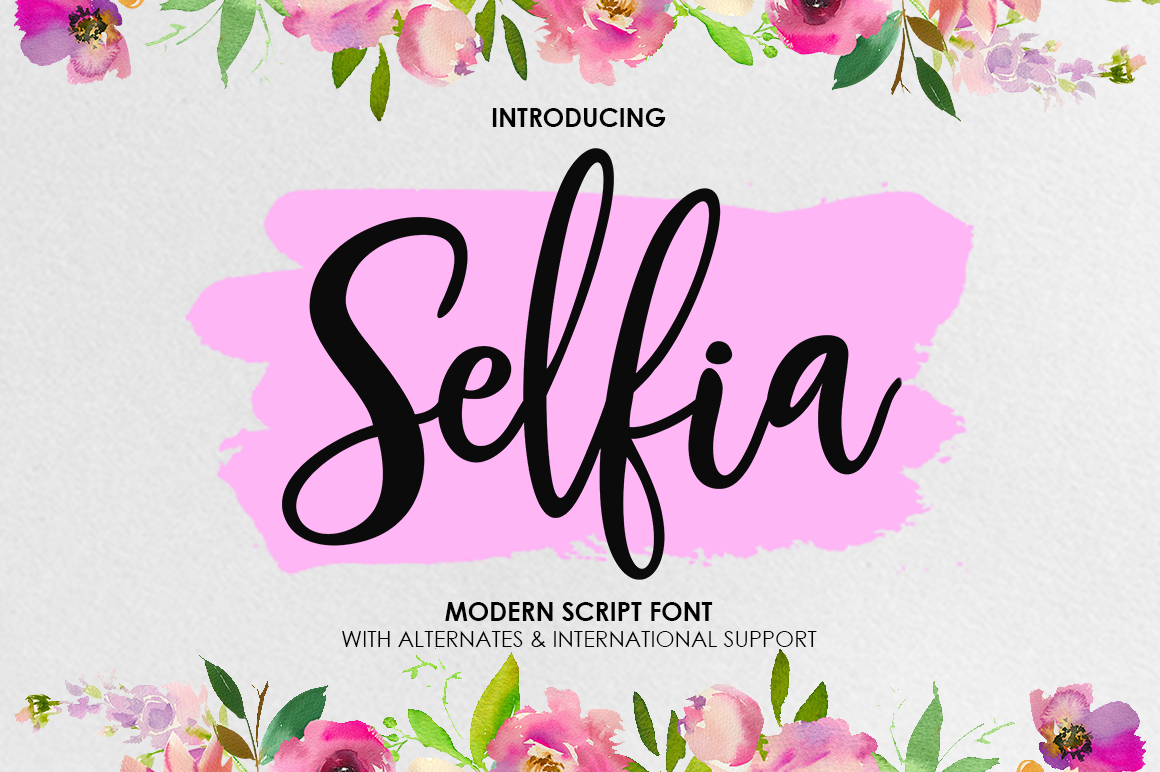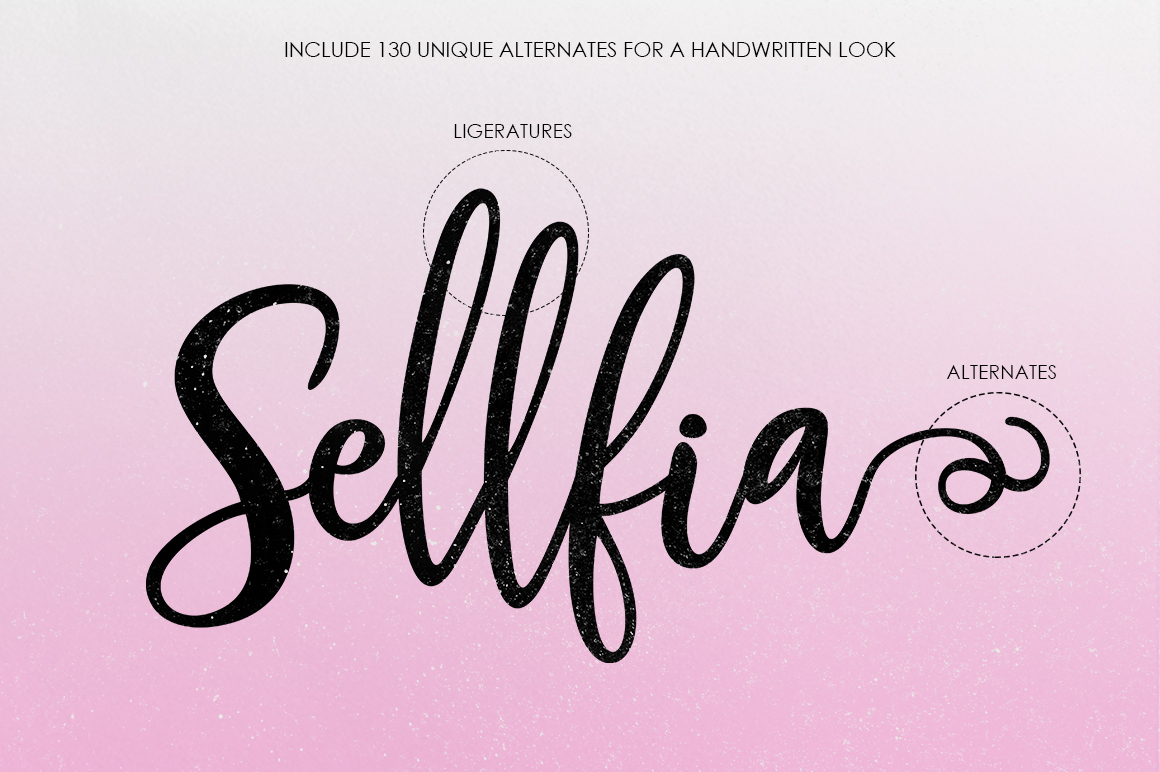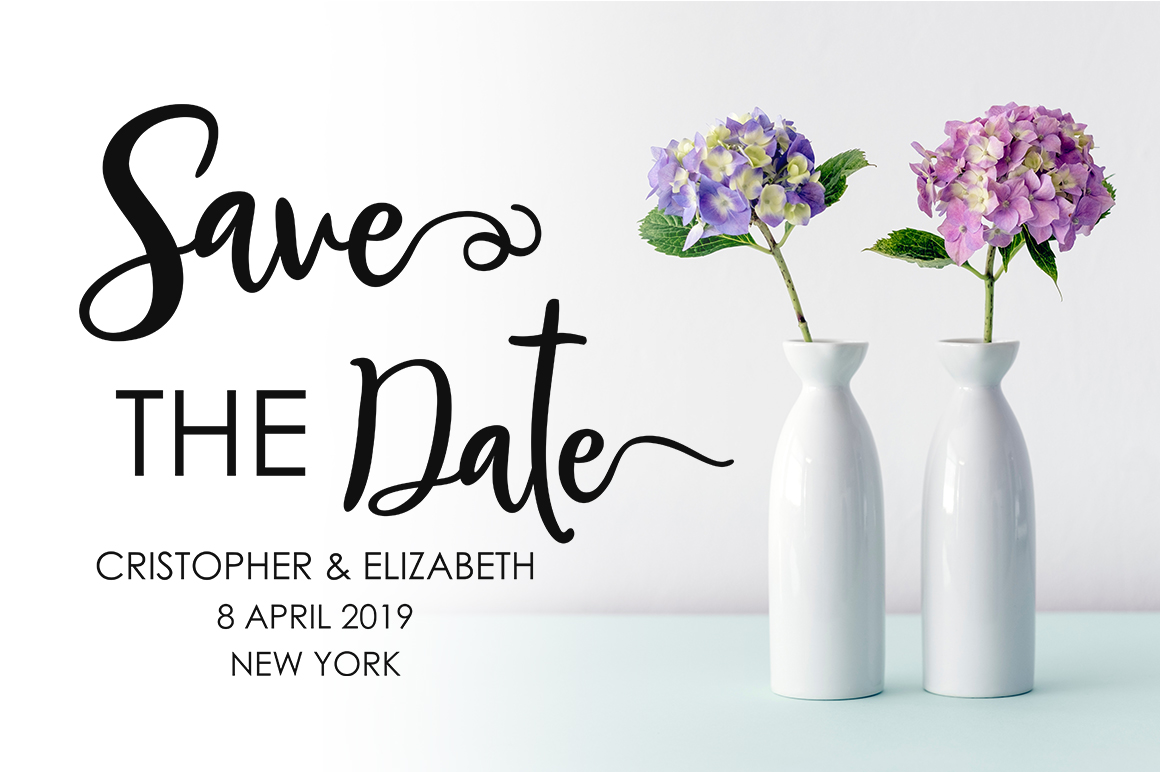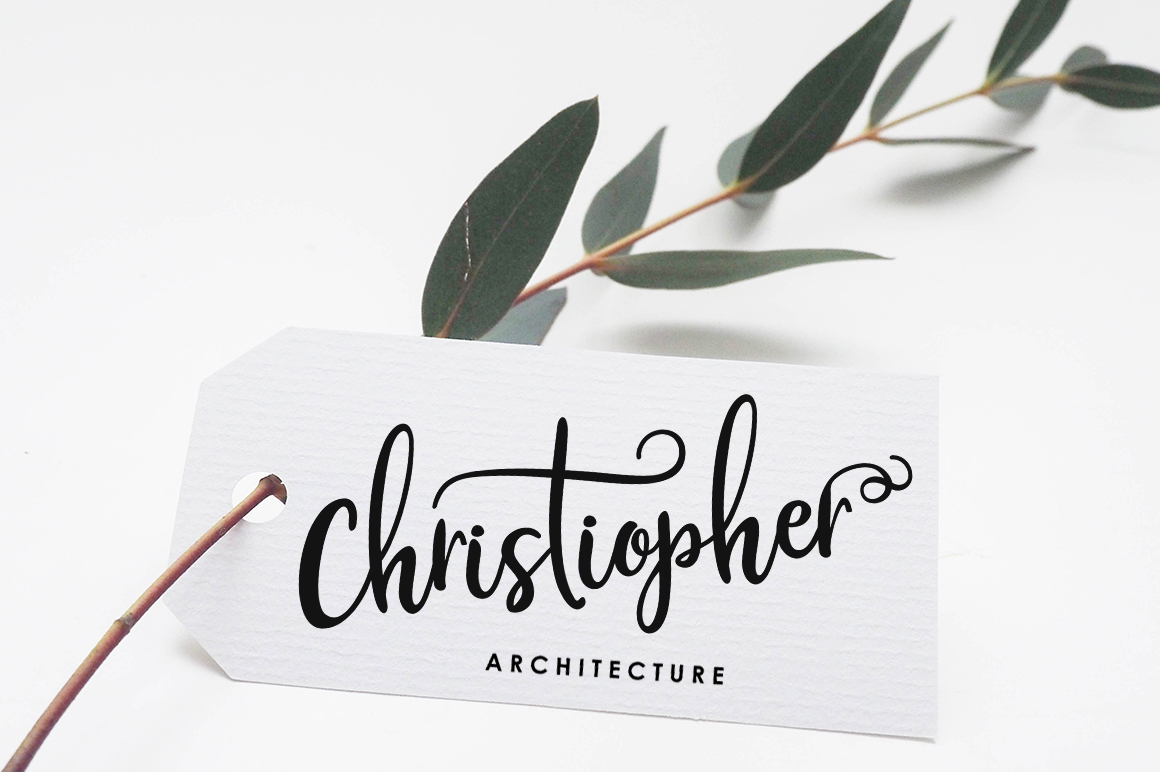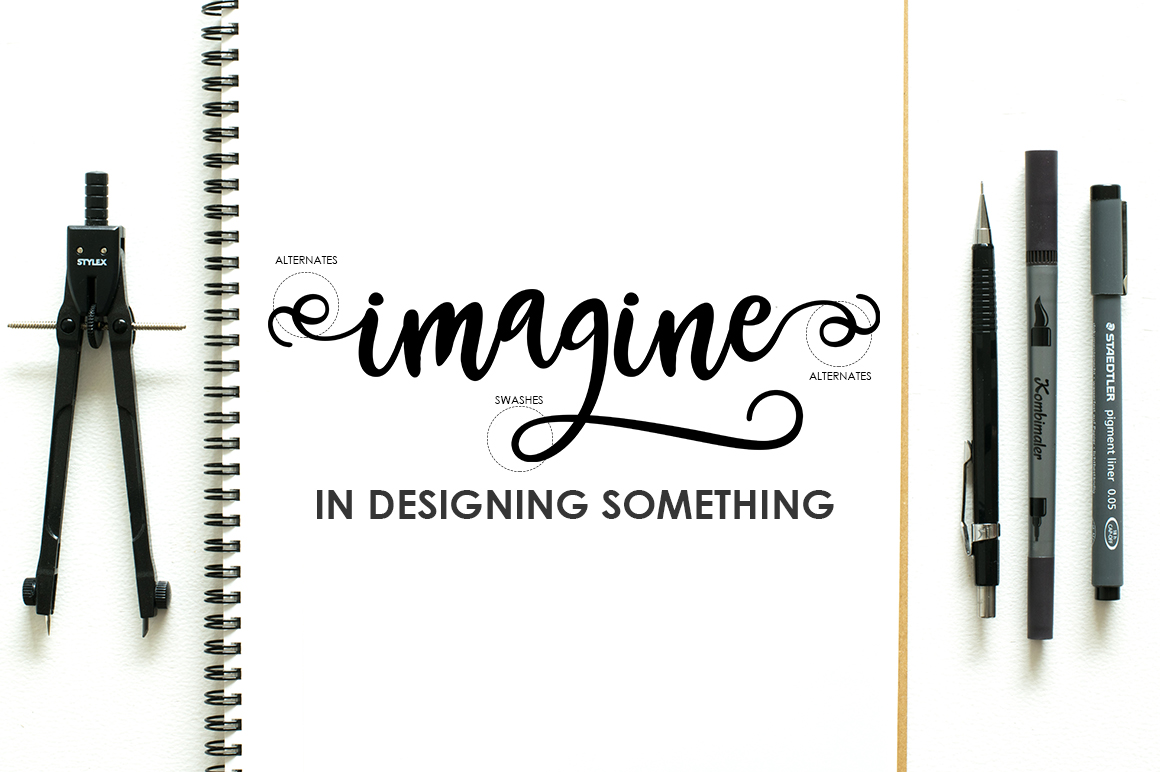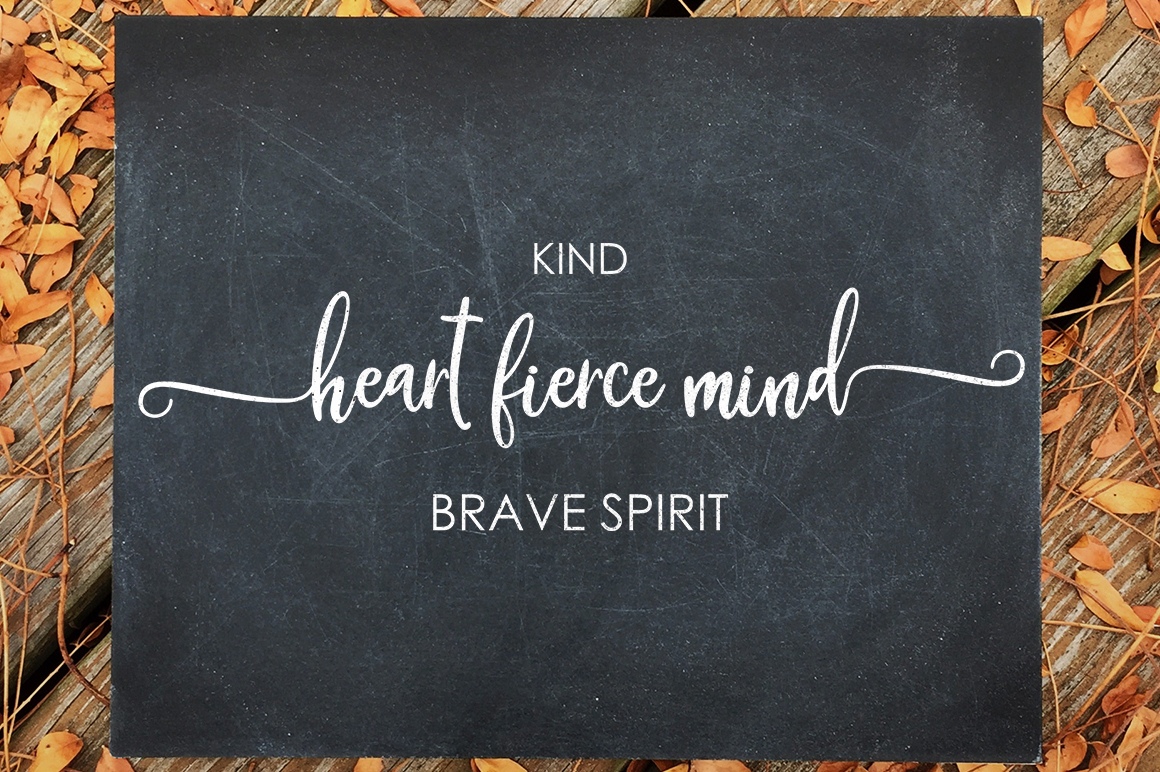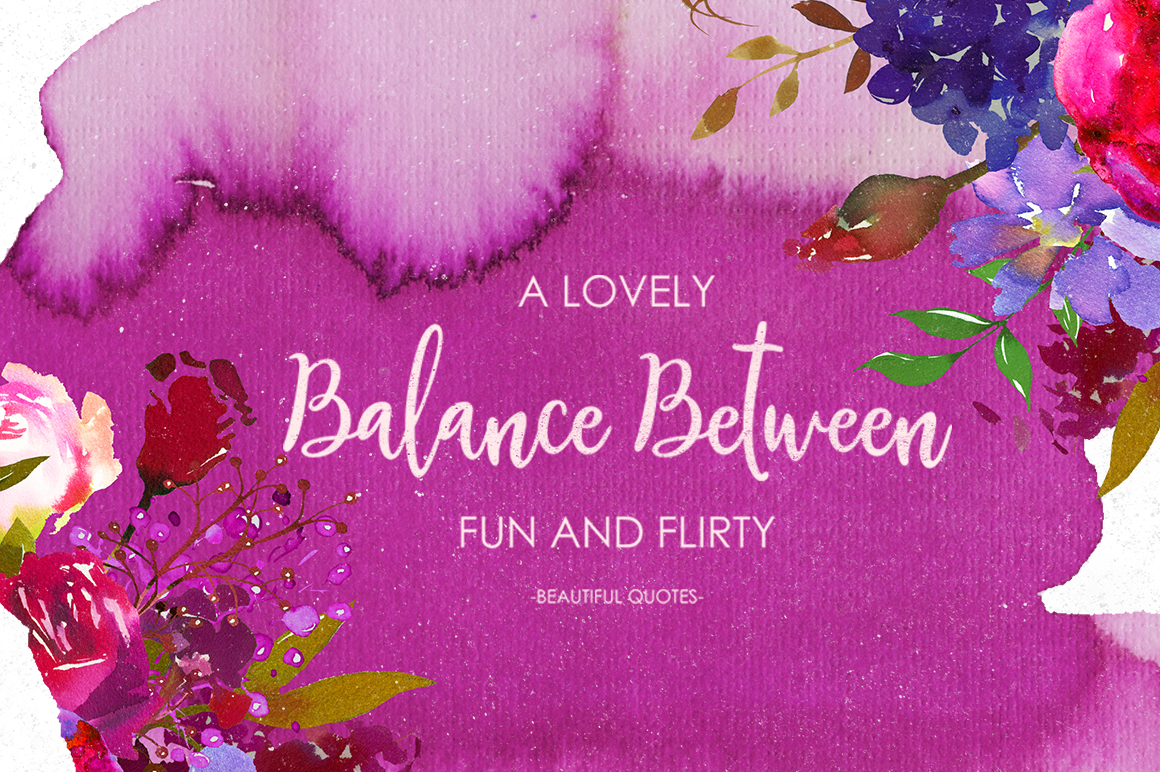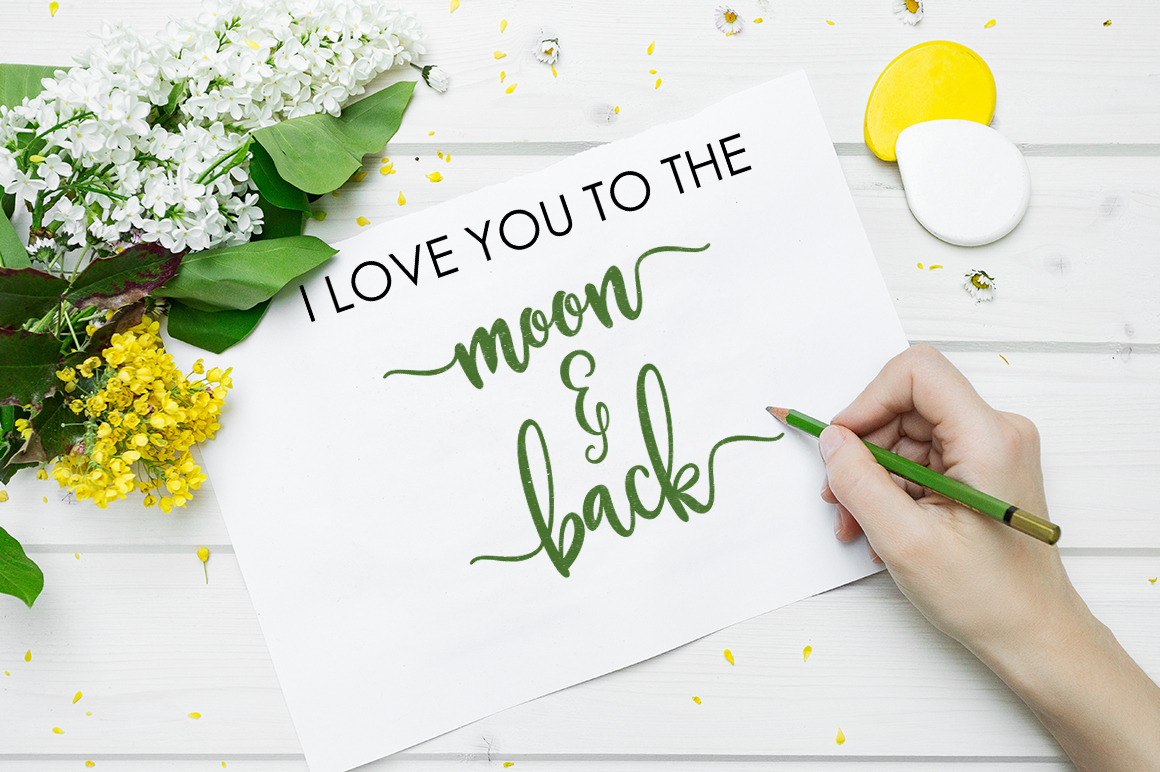
Selfia Font
About Selfia Font
Selfia is a modern calligraphy script, with a stunning handwritten style. It’s modern with a tasty, fresh flow.
Selfia Script features many stunning alternates, allowing you to create come up with endless variations.